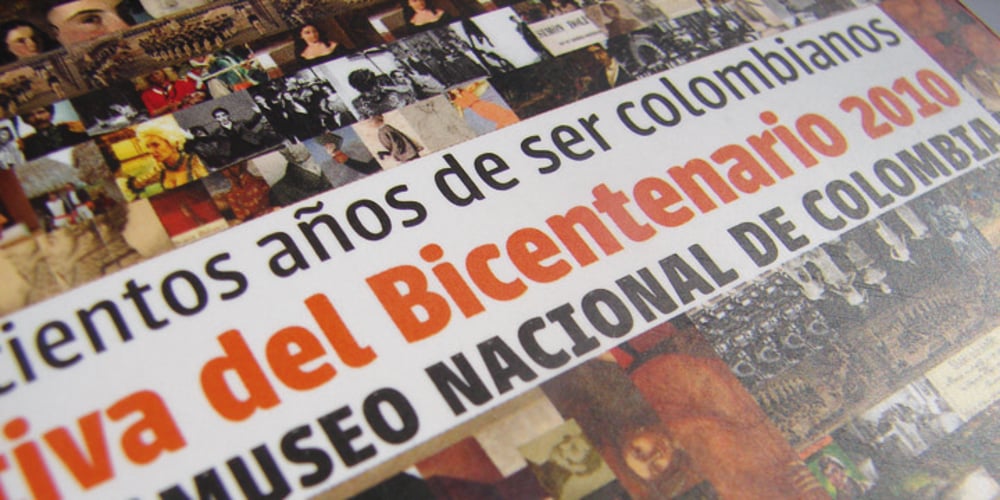
Urbana
Urbana font
Urbana Font Family was designed by César Puertas and published by César Puertas. Urbana contains 10 styles and family package options. Urbana is a contemporary, naturally condensed sans-serif typeface inspired by the traditional lettering found in Colombian city buses. A mixture of influences reminiscent of modernism, hand lettering, cluttered spaces and improvisation are the source of its unique forms. Urbana was designed to save space and catch the reader’s attention while keeping a high legibility in virtually all situations. Urbana is recommended for setting headlines and short paragraphs in newspapers and magazines or wherever graphic designers need to save space. Its distinctive shapes also help designers to produce easy-to-recognize logos and work as an ideal companion of visual identity systems.